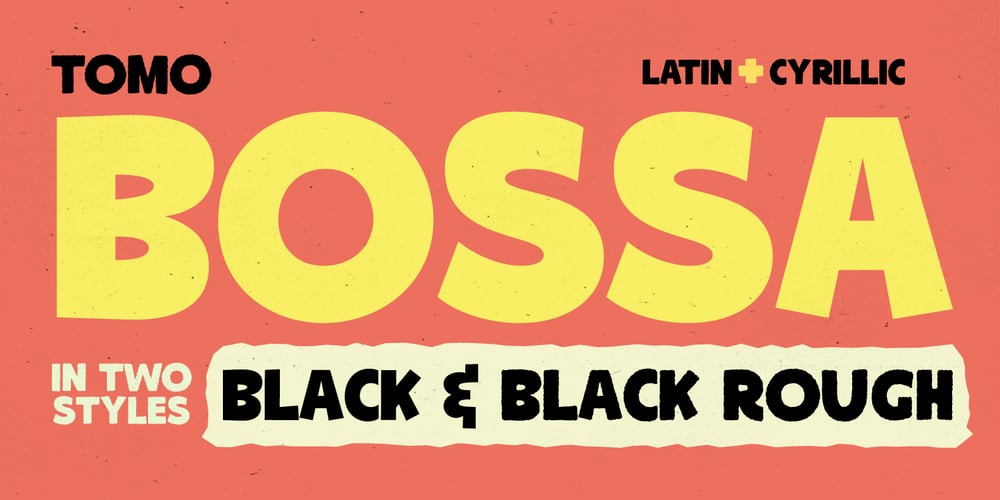
TOMO Bossa
TOMO Bossa font
TOMO Bossa Font Family was designed by TOMO Fonts and published by TOMO Fonts. TOMO Bossa contains 2 styles and family package options. TOMO Bossa is a cartoon inspired sans serif, ideal for kids related stuff, in print or digital, like posters, video, websites or books! This beauty also speak Cyrillic! The complete family comes with a Black and Black Rough style. Enjoy!